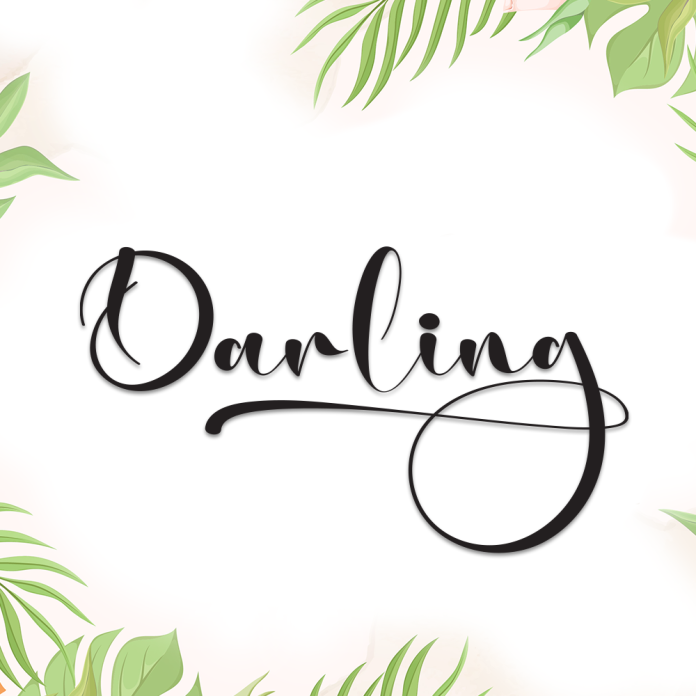
Darling is a lovely handwriting font that radiates warmth, affection, and a playful elegance. With its flowing strokes and soft curves, this font is perfect for romantic designs, heartfelt messages, and anything that needs a touch of sweetness.
Ideal for wedding invitations, love letters, feminine branding, greeting cards, and social media posts, Darling brings a graceful and emotional feel to your creations.
Elegant and cute handwritten style
Smooth, delicate letterforms full of personality
Perfect for romance themes, lifestyle branding, and heartfelt designs
Fall in love with Darling, the handwriting font that speaks straight from the heart.